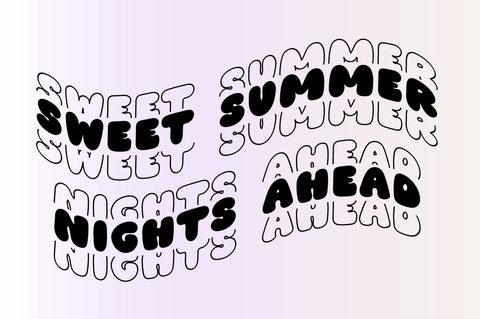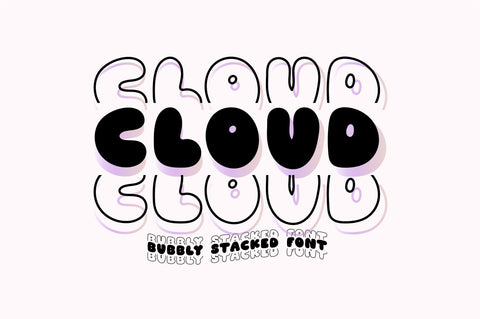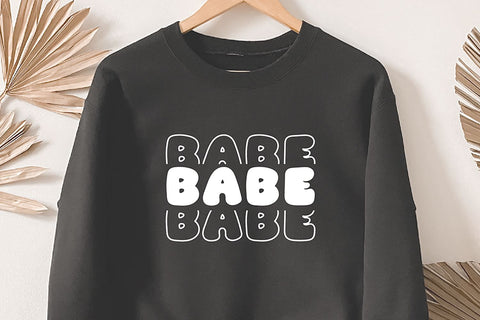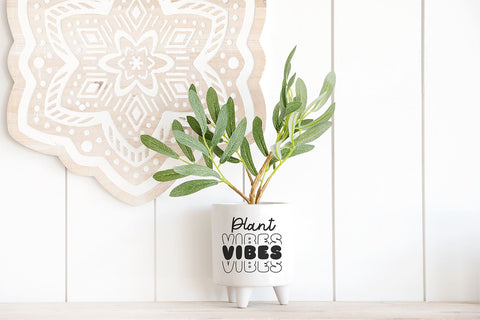
Cloud Stacked Bubbly Retro Font
"Cloud Stacked" a trendy bubbly boho display font with a stacked effect.
This font is a trendy display font that is perfect for social media or crafty projects. Use if for branding, crafts for decor, invitations, and more! This font includes numbers and a few punctuation marks.